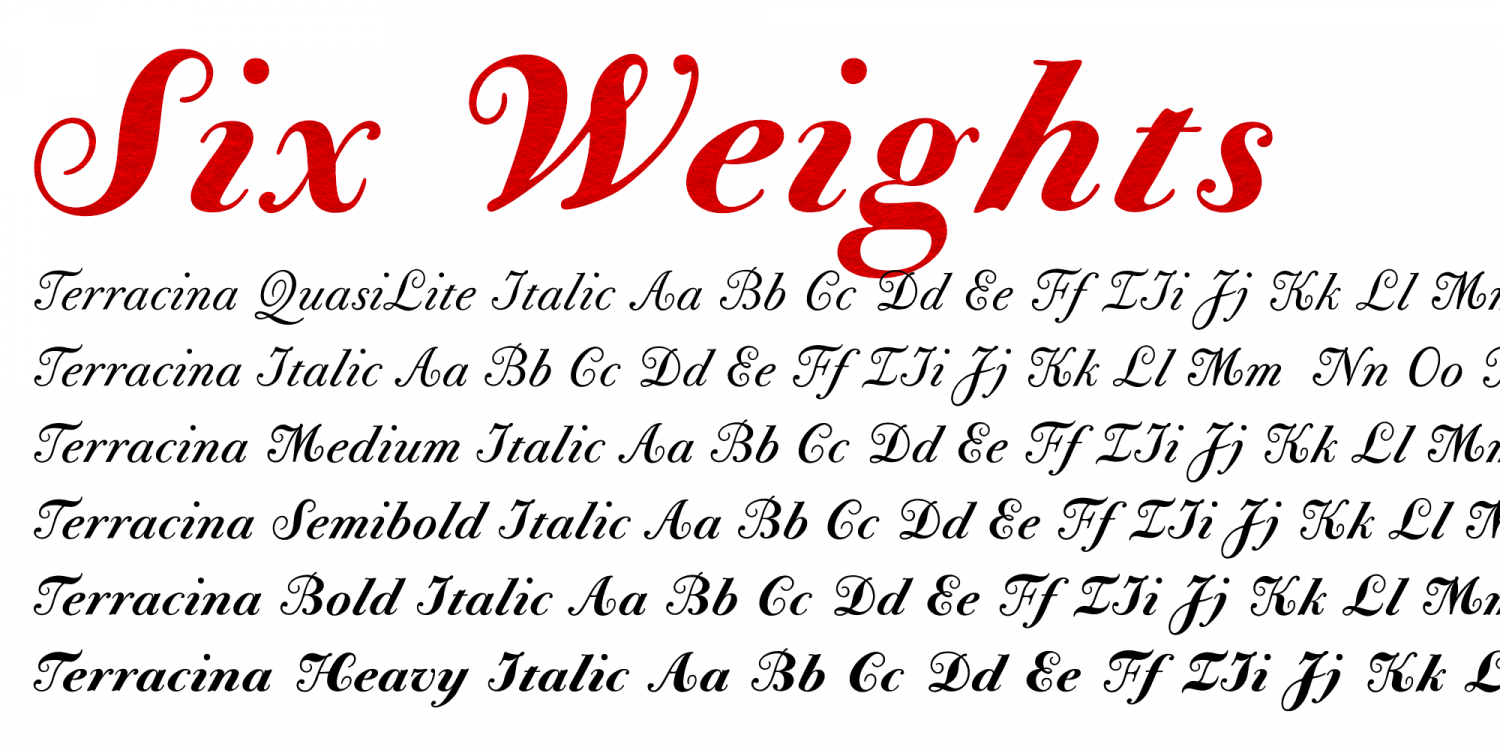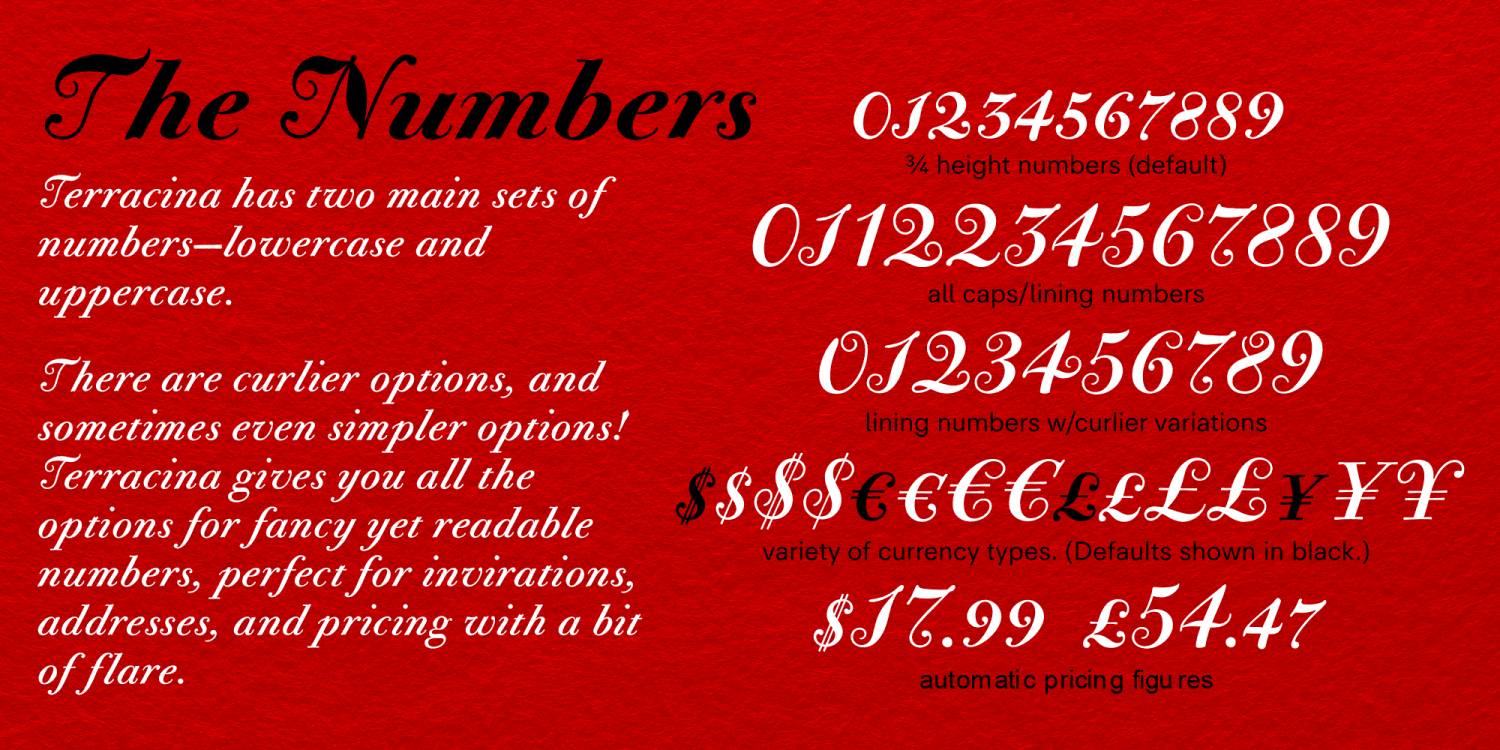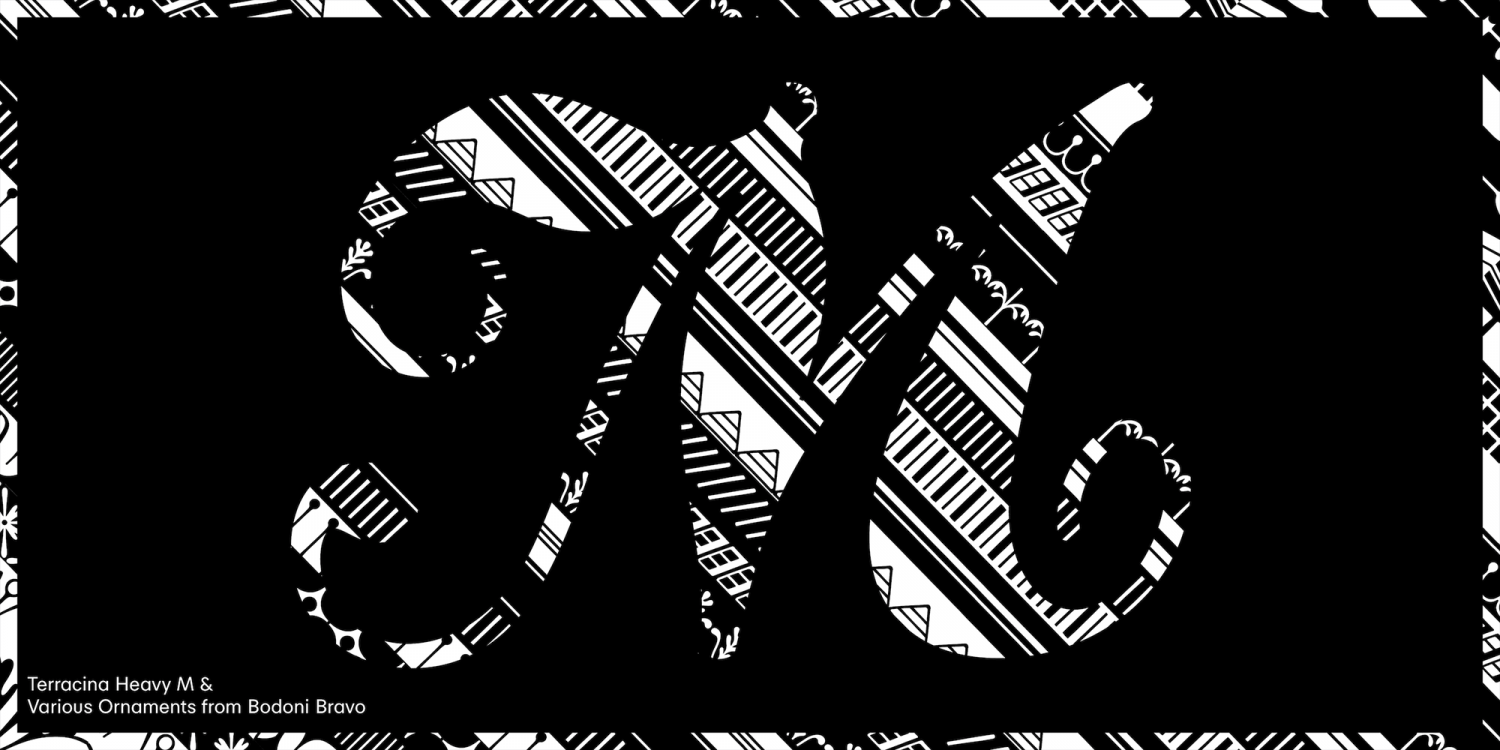
About Bodoni Terracina
Bodoni Terracina is a legible, fun-formal script face, with lots of curls. Sometimes script faces are hard to read. Sometimes being formal means that there\’s no personality and there\’s no fun. Enter Terracina: one of the masterpieces of font design. Some…